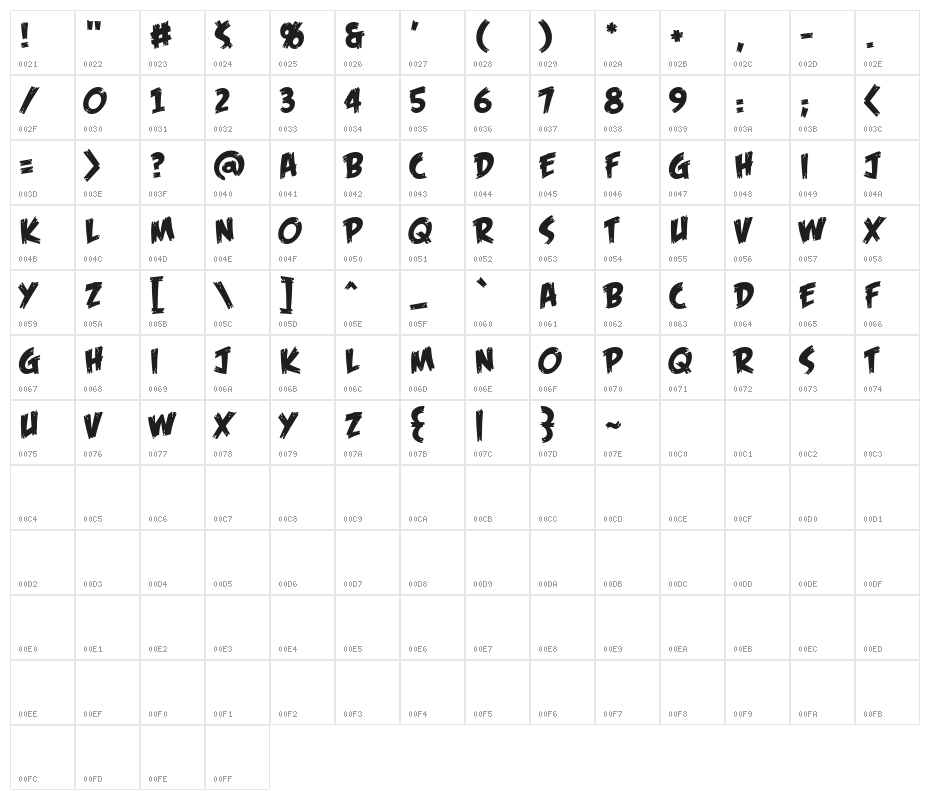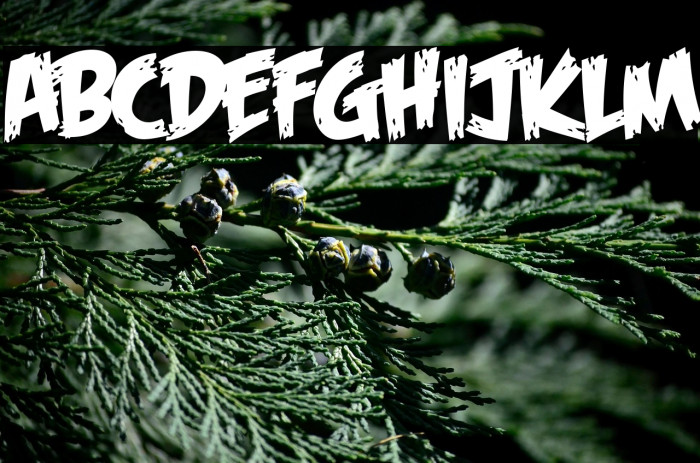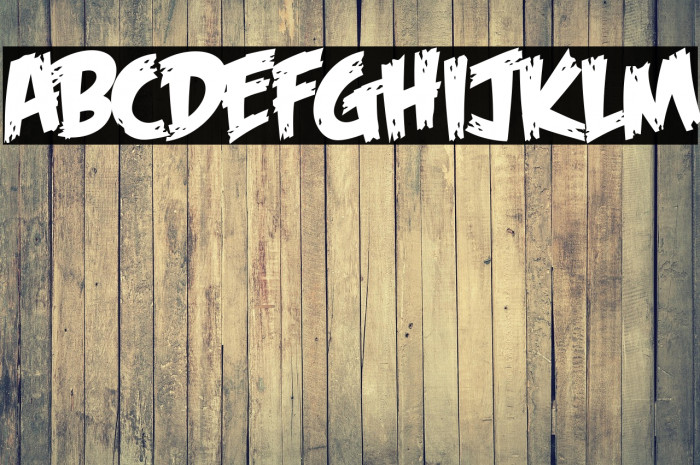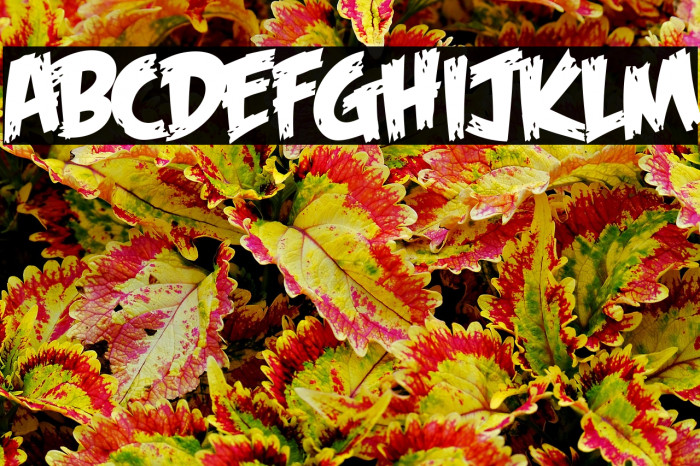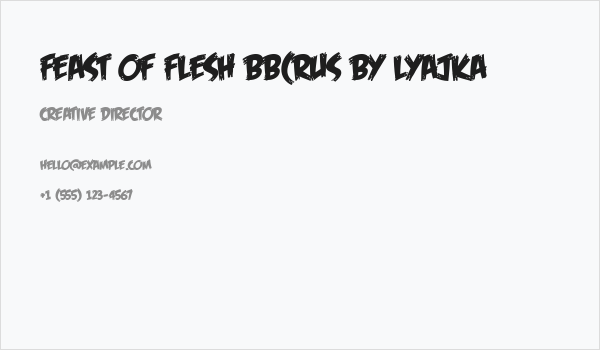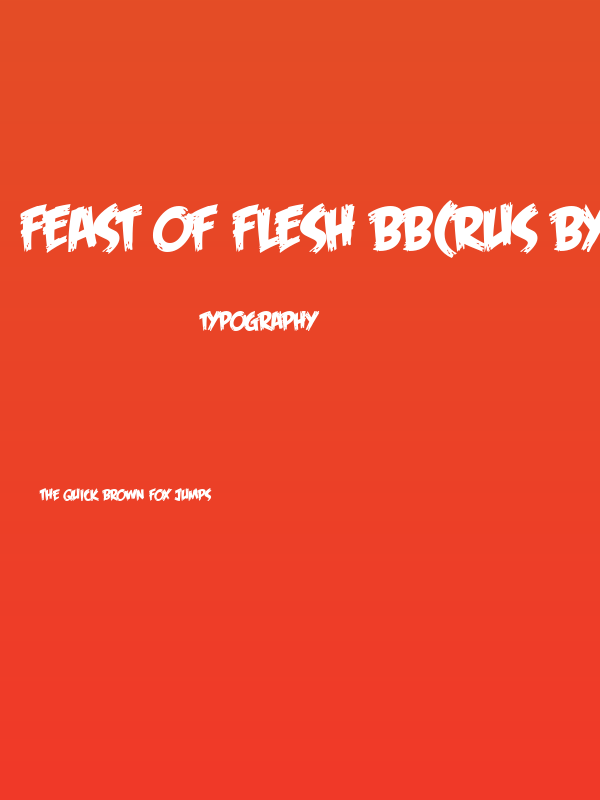
Feast of Flesh BB(RUS BY LYAJKA Font
Feast of Flesh BB(RUS BY LYAJKA Description
This font features a bold, energetic style with a distressed, brush-like texture that gives it a dynamic and edgy appearance. The characters are irregular and jagged, creating a sense of movement and chaos. The uppercase and lowercase letters maintain a consistent style, with sharp angles and uneven edges that contribute to its raw and expressive look. The numbers and special characters follow the same aesthetic, ensuring a cohesive design throughout. This font is ideal for projects that require a bold statement or a gritty, urban feel.
| Proposed Projects | Ideal for posters, album covers, street art designs, and any project needing a bold, gritty aesthetic. |